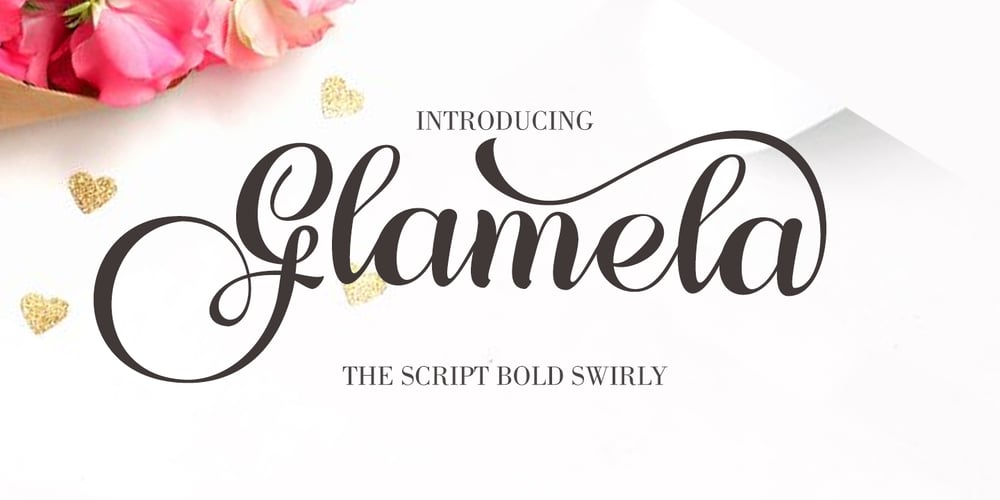
Glamela Script Font Family was designed by khaidir and published by Gatype. Glamela Script contains 1 styles and family package options. Glamela Script Script Modern Calligraphy, the newest you can get now! With an updated hand calligraphy model with special glyphs that have been given a combination of fantasy and handwritten ink. This font will look beautiful on all designs, Wedding designs, branding materials, blog titles, quotes and invitations, business cards.Open Type includes:- Alternative Style- Set styleTo enable the OpenType Stylistic alternative, you need a program that supports OpenType features such as Adobe Illustrator CS, Adobe Indesign & CorelDraw X6-X7, Microsoft Word 2010 or later.There are additional ways to access the alternative/swash, using the Character Map (Windows), Nexus Font (Windows), Font Book (Mac) or a software program such as PopChar (for Mac and Window).